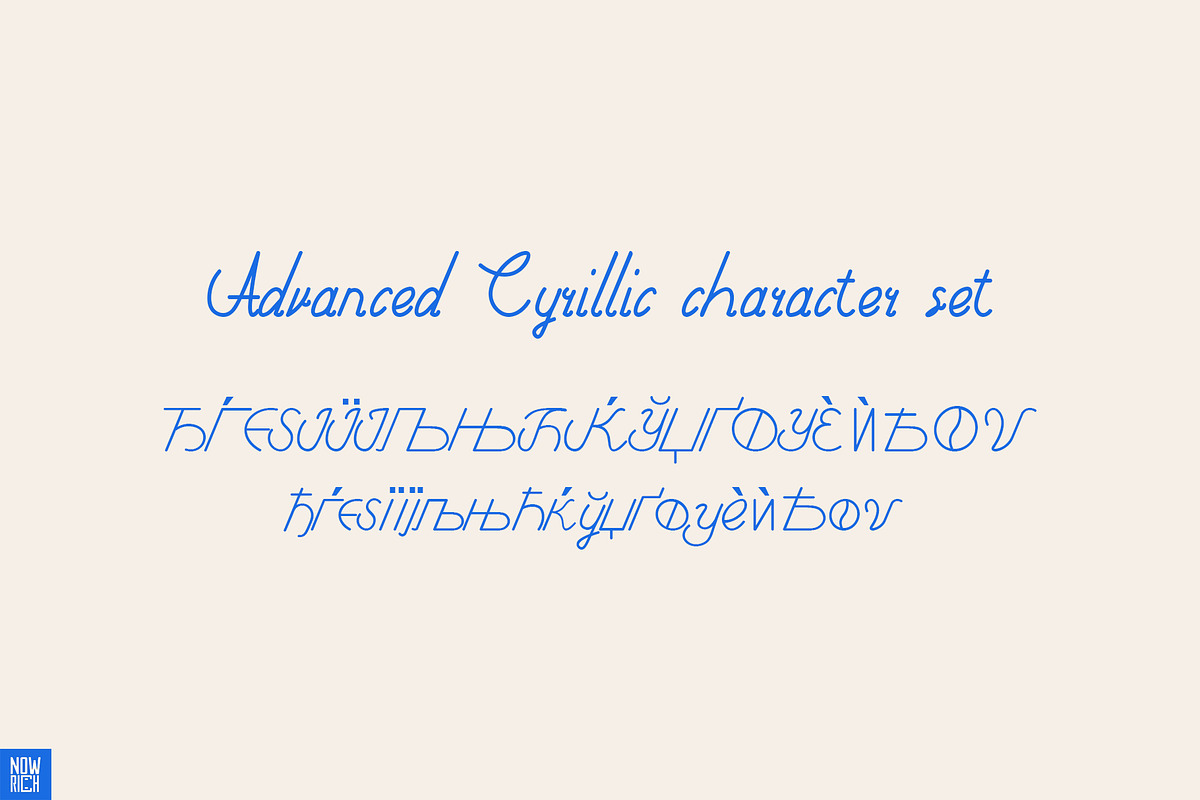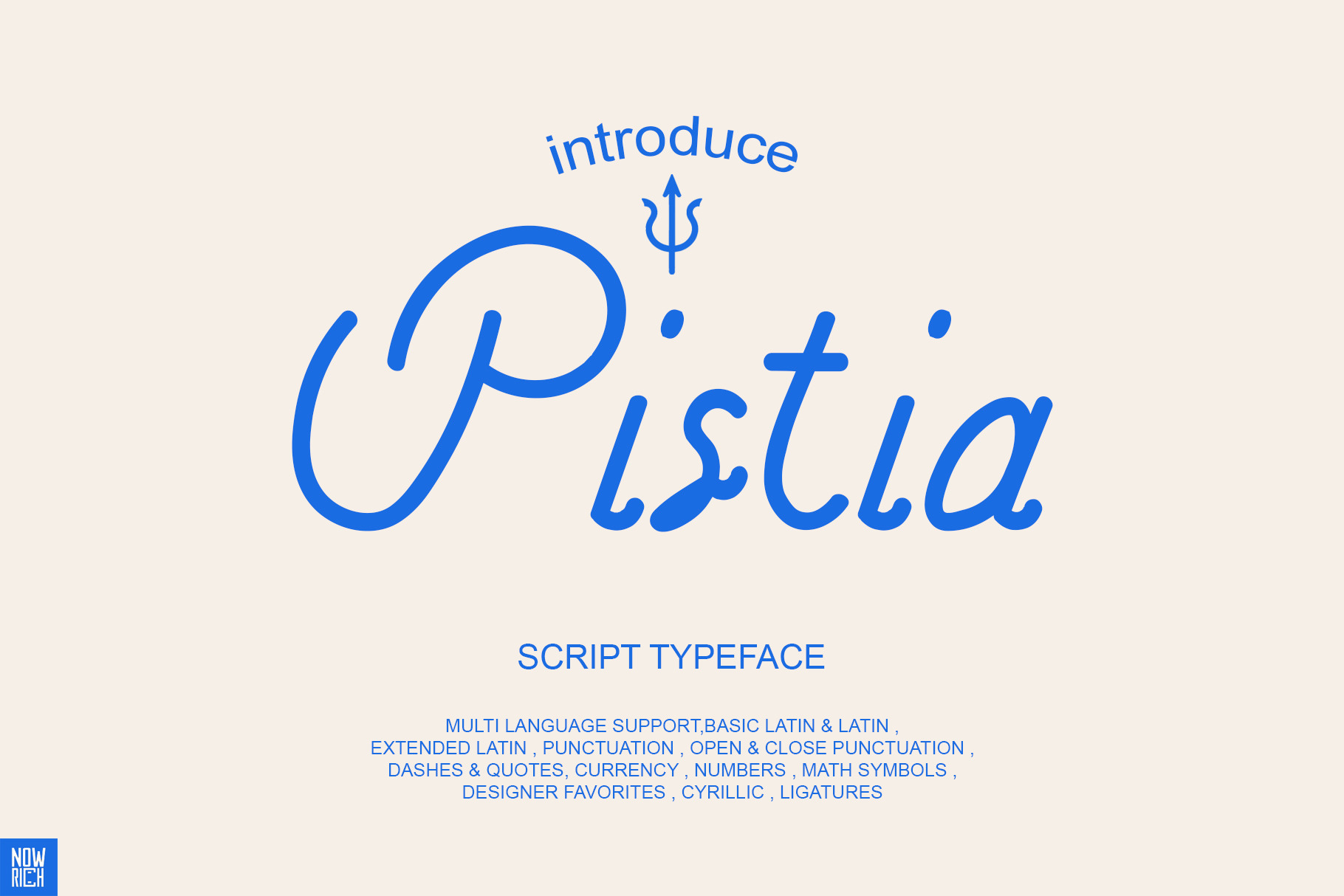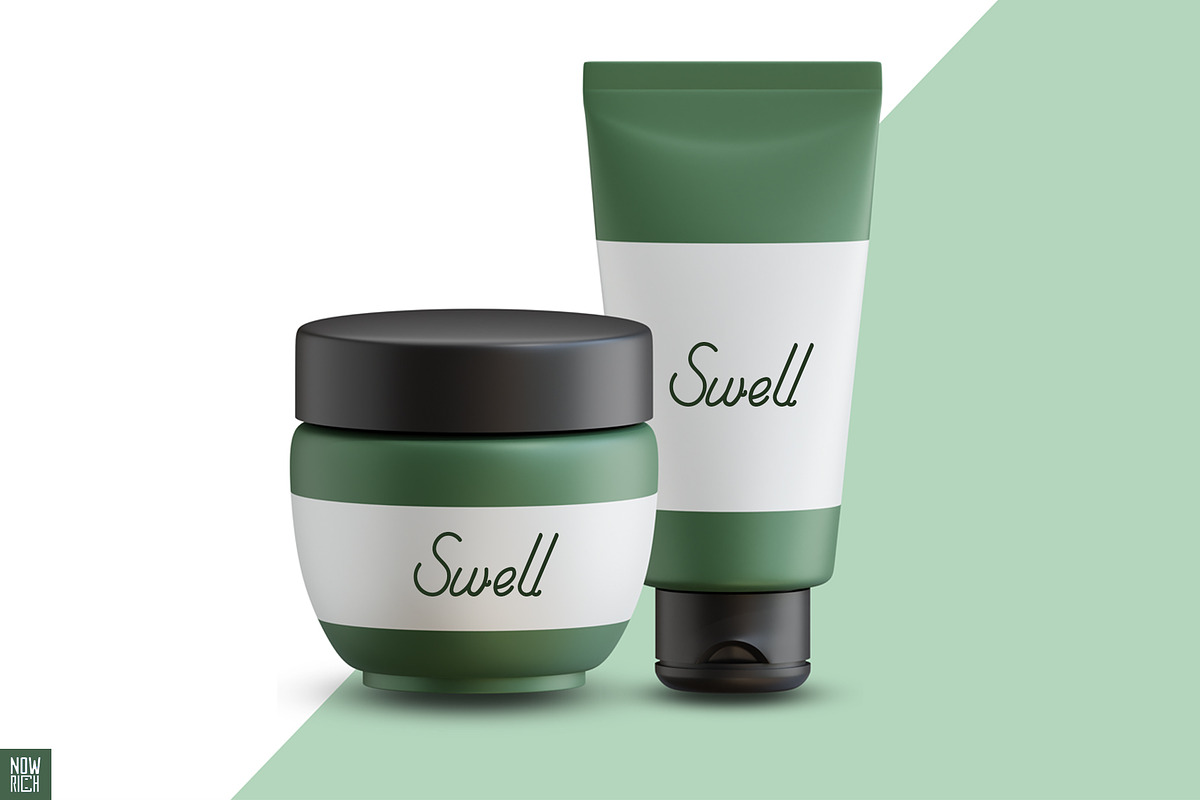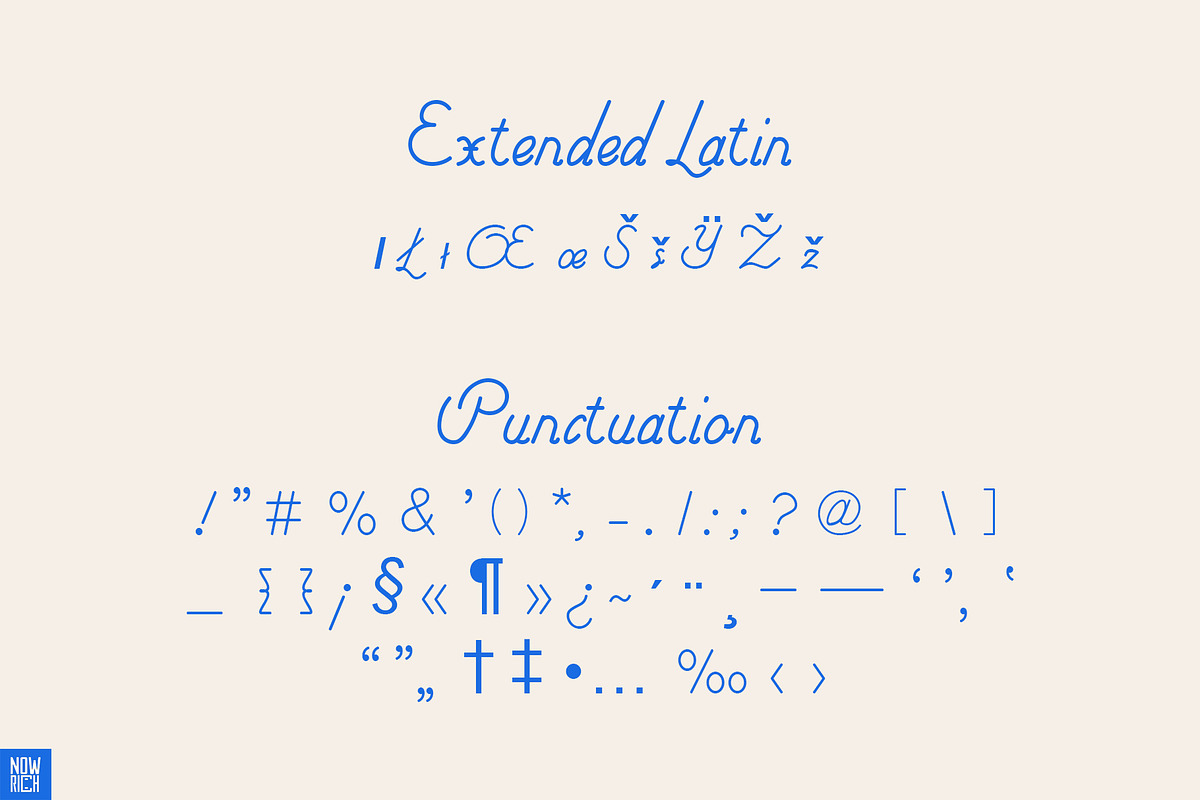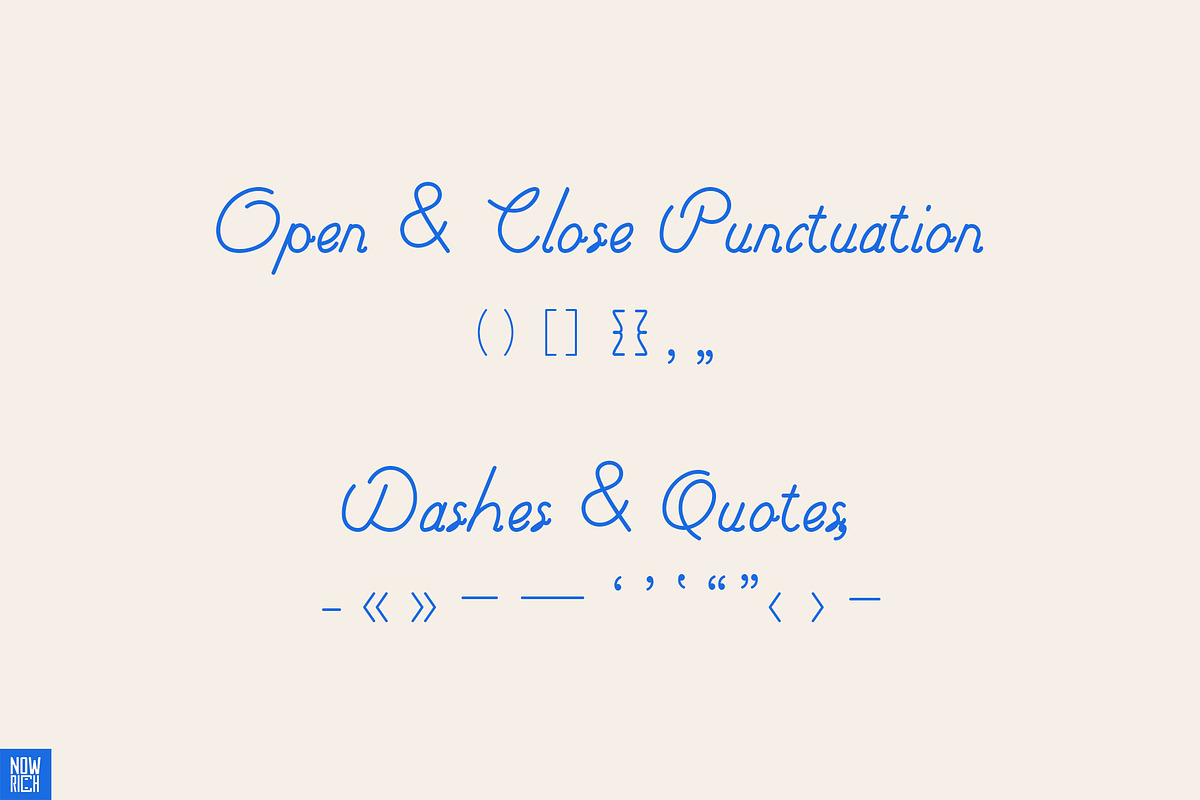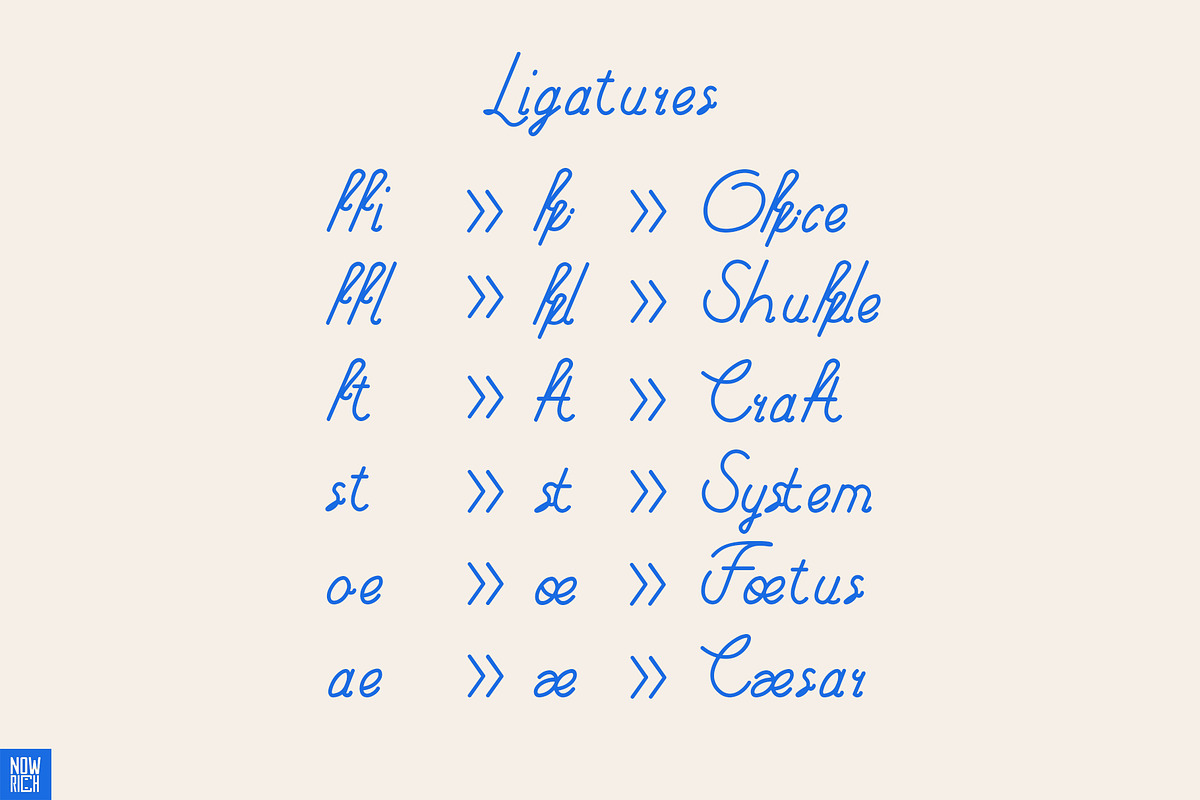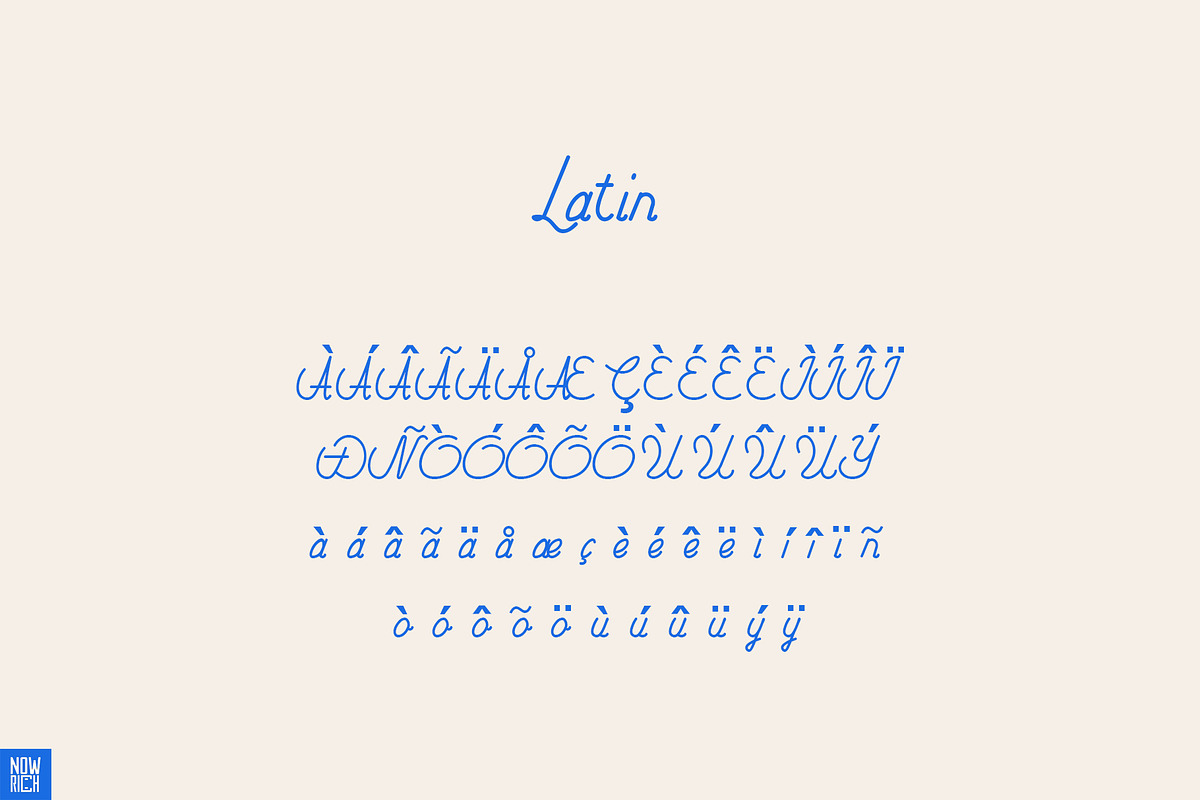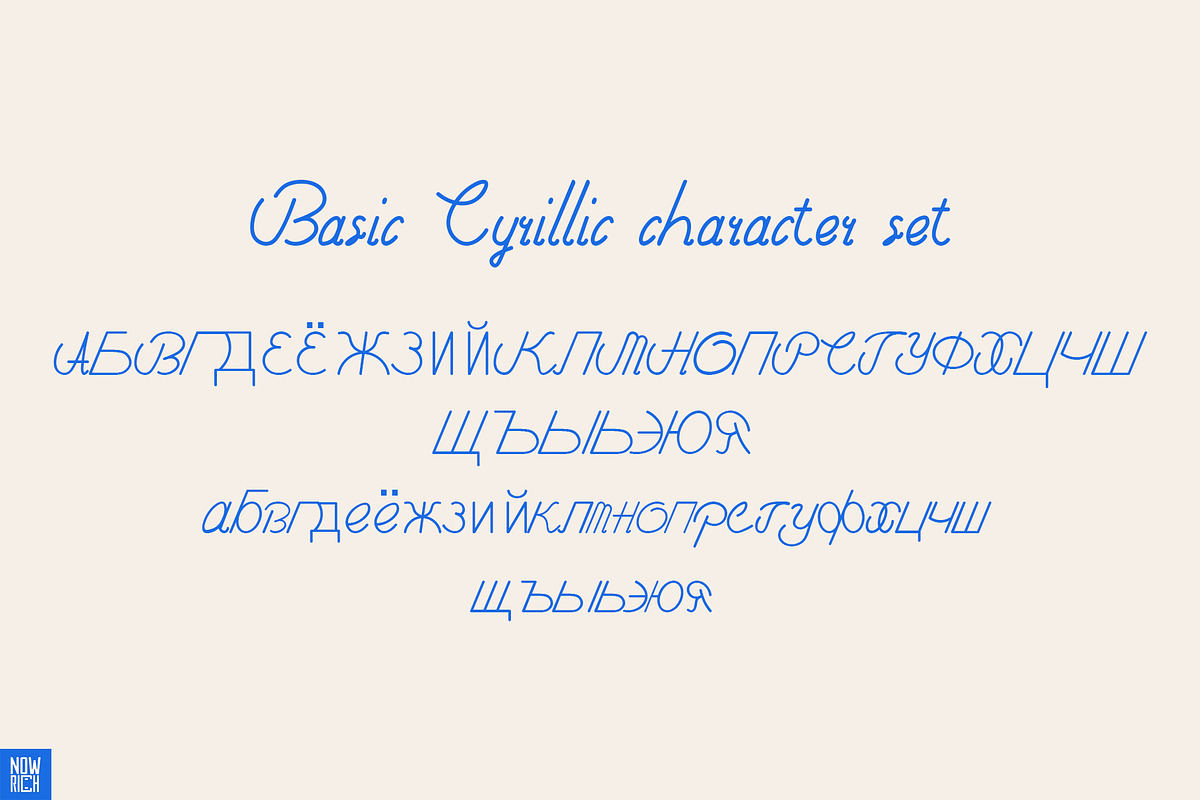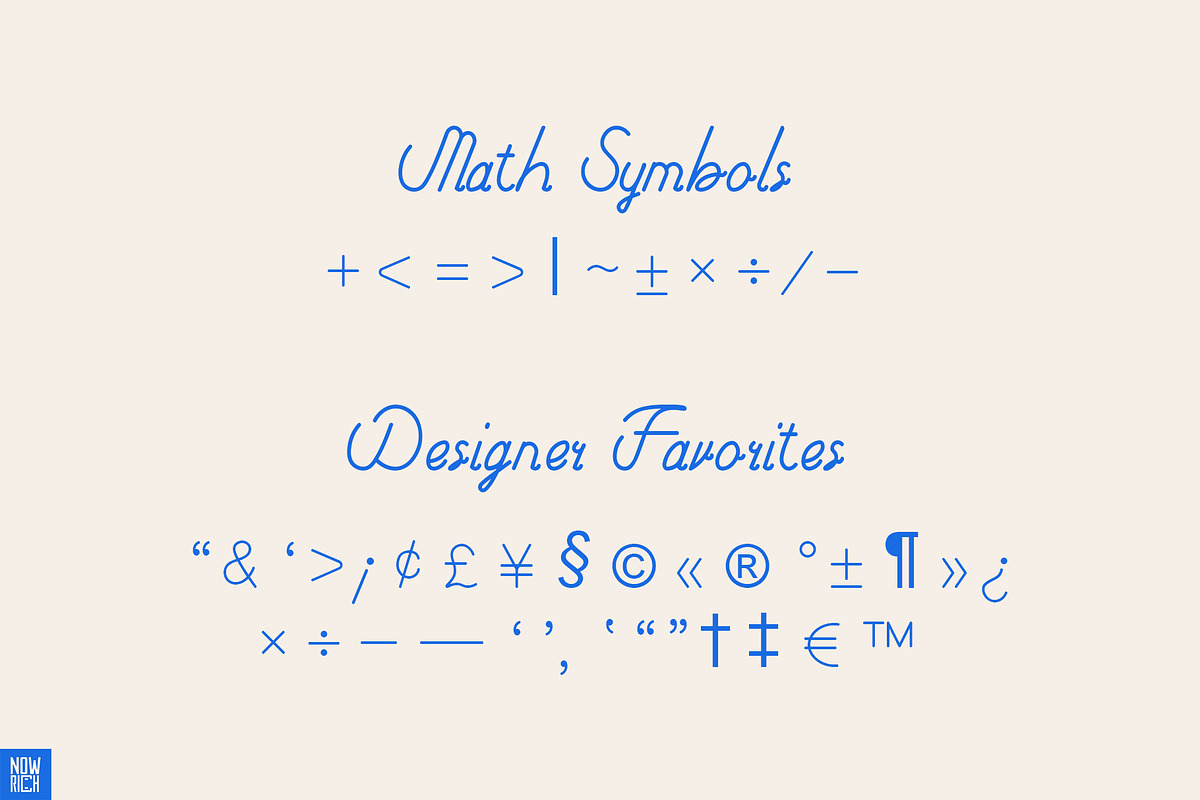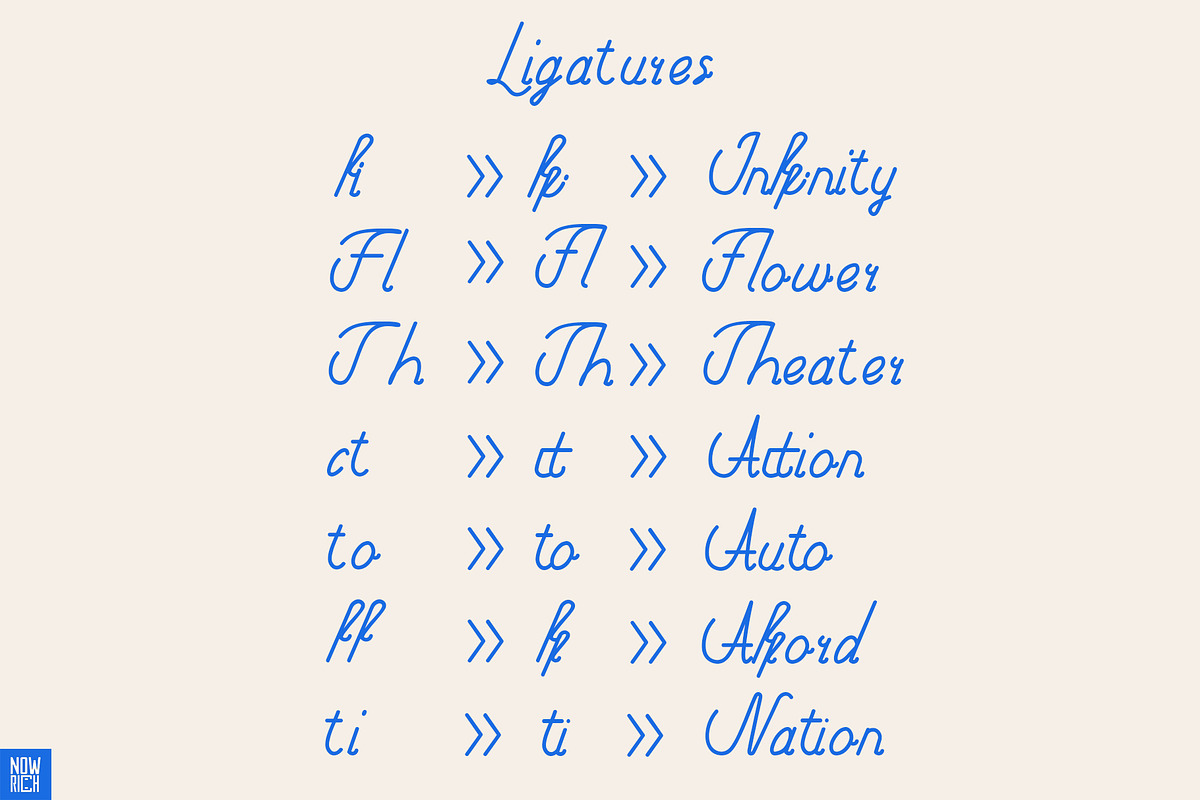
Pistia - Script Typeface
Introducing a contemporary reimagining of the timeless Script Typeface
Infused with a captivating fusion of influences and my distinctive design touch, this font is tailor-made for weddings, invitations, posters, art, branding, logos, tattoos, illustrations, and beyond. Elevate your projects with its engaging uppercase and lowercase characters, striking the perfect balance between tradition and creativity. Stand out effortlessly with this versatile font that promises to breathe new life into your designs.
Featured :
- Latin
- Basic Latin
- Extended Latin
- Open & Close Punctuation
- Dashes & Quotes
- Currency
- Math Symbols
- Designer Favorites
- Cyrillic
- Multi language support